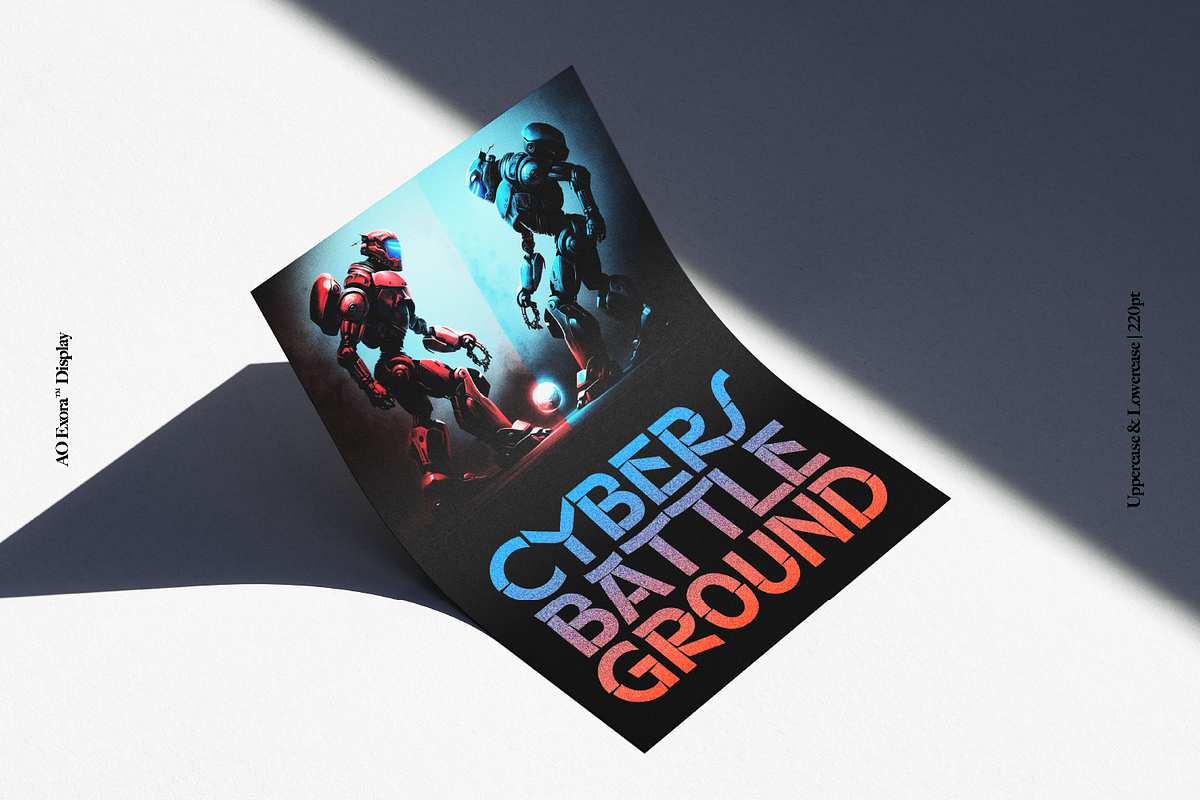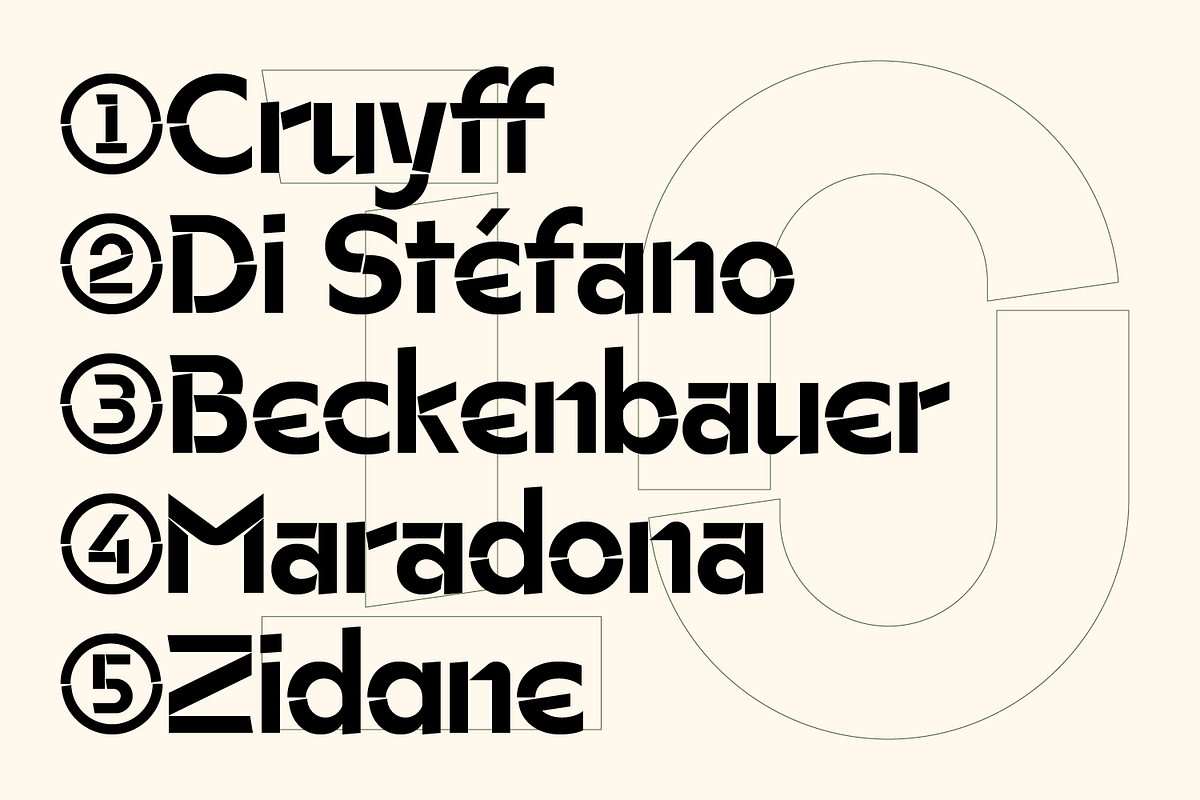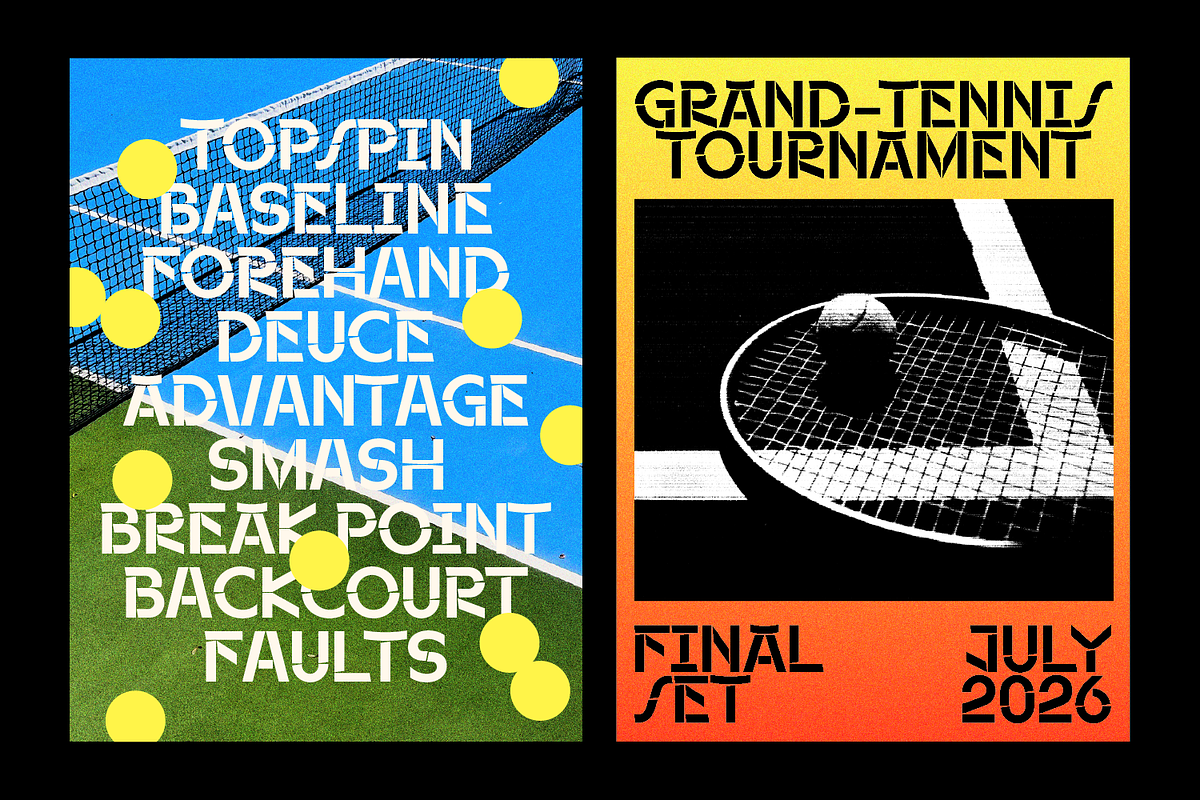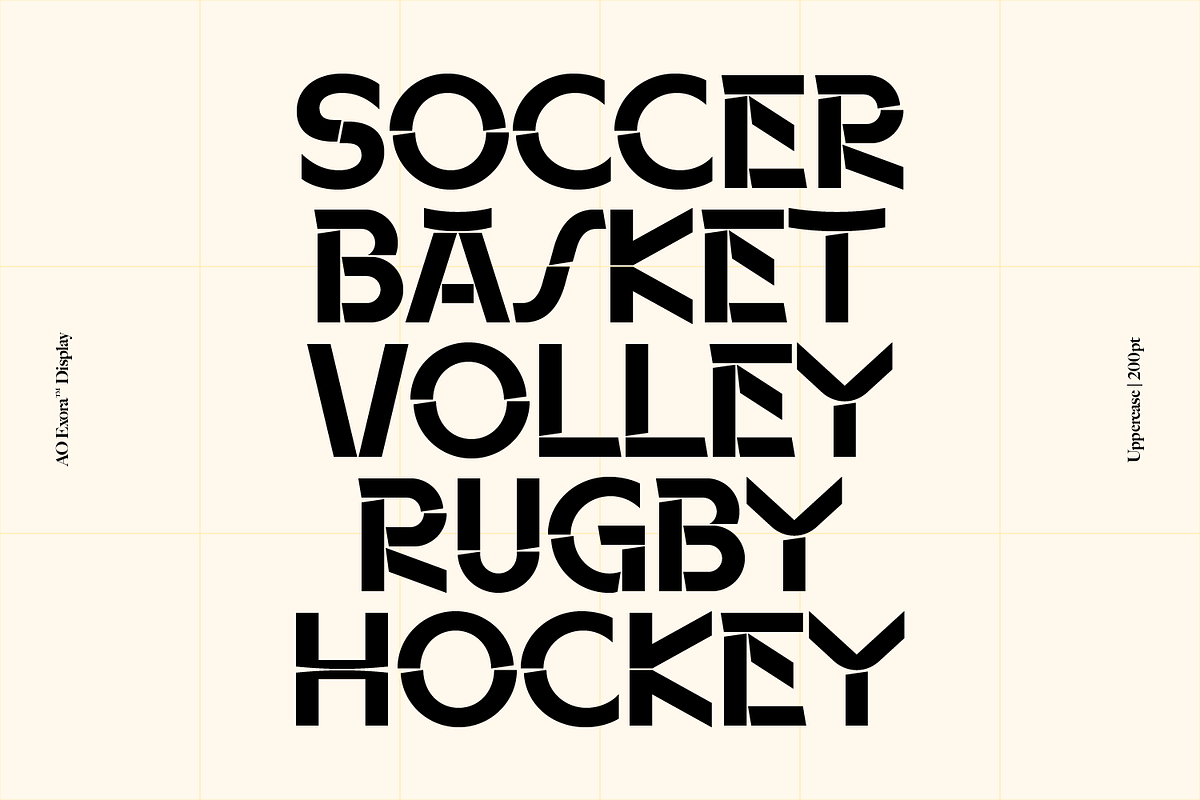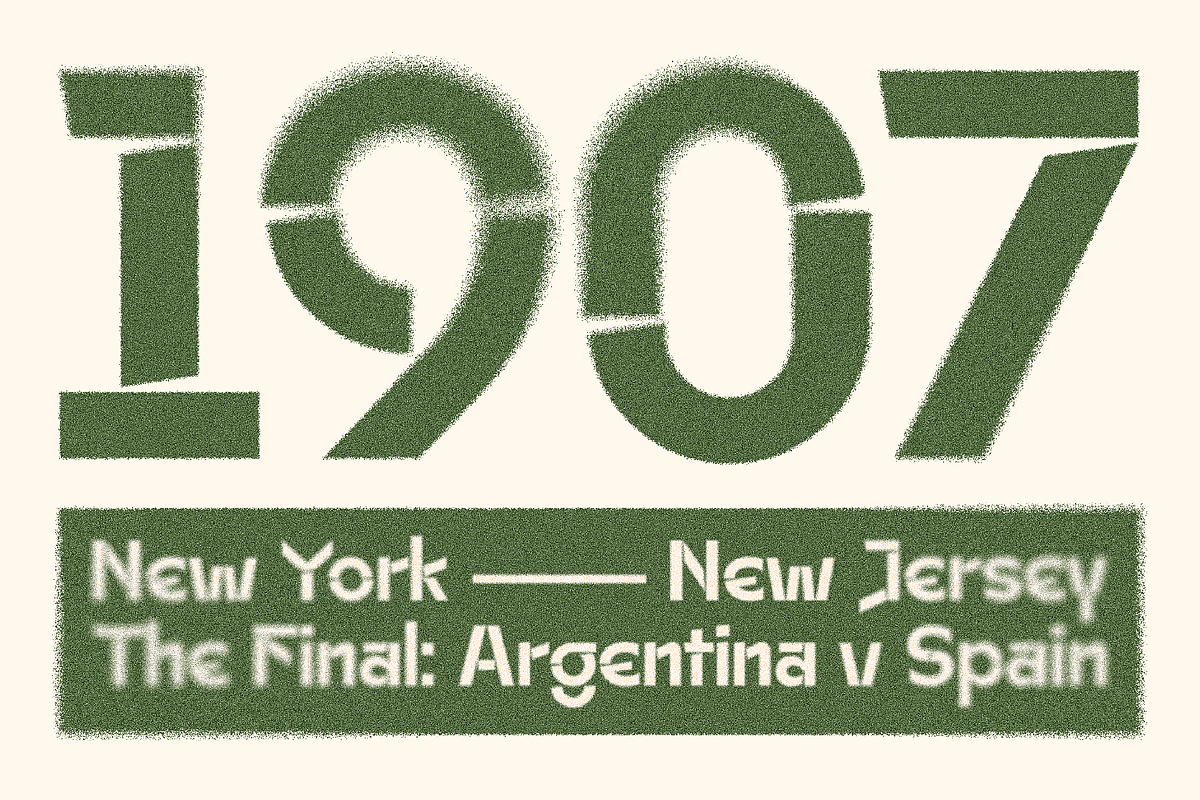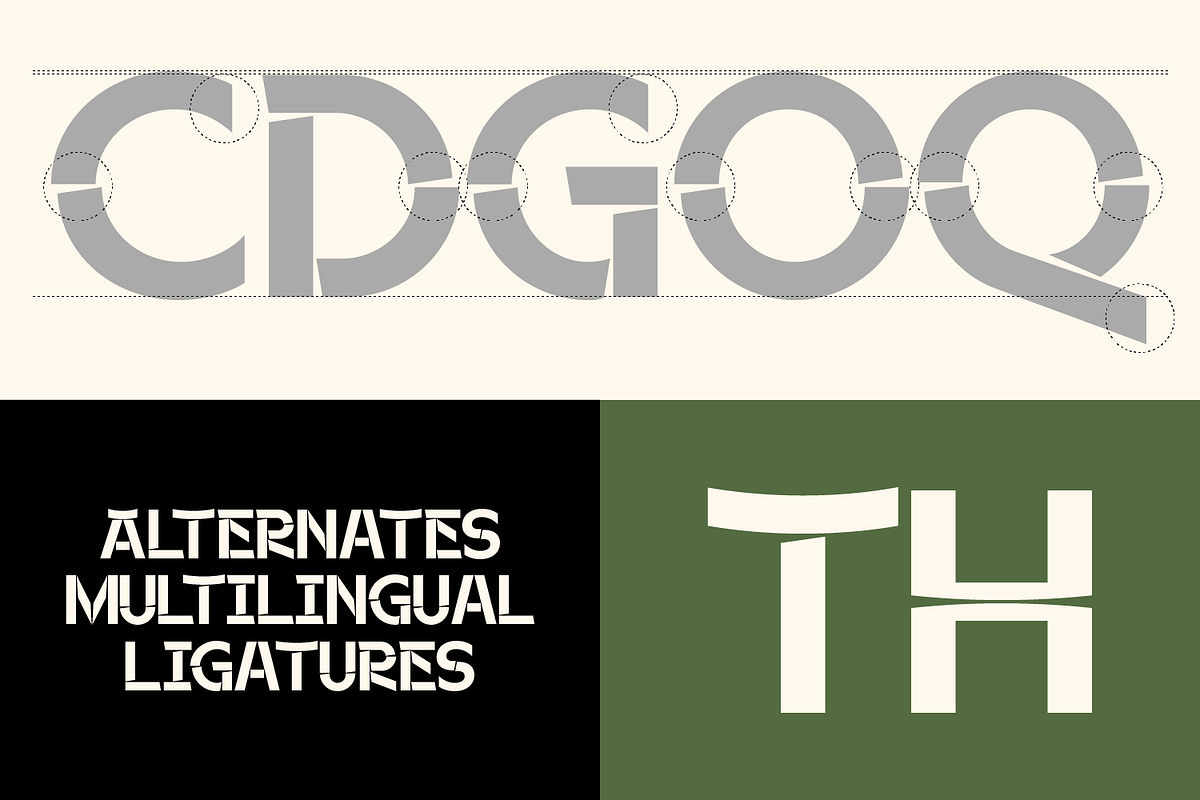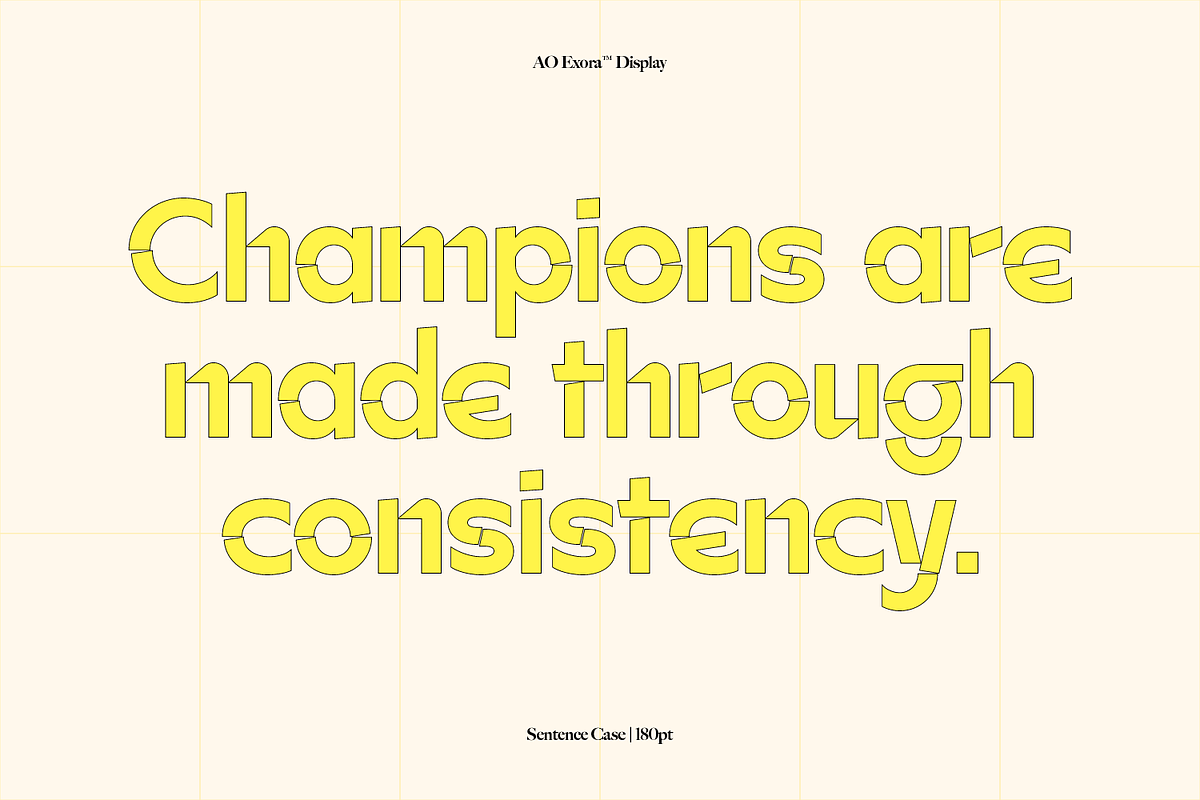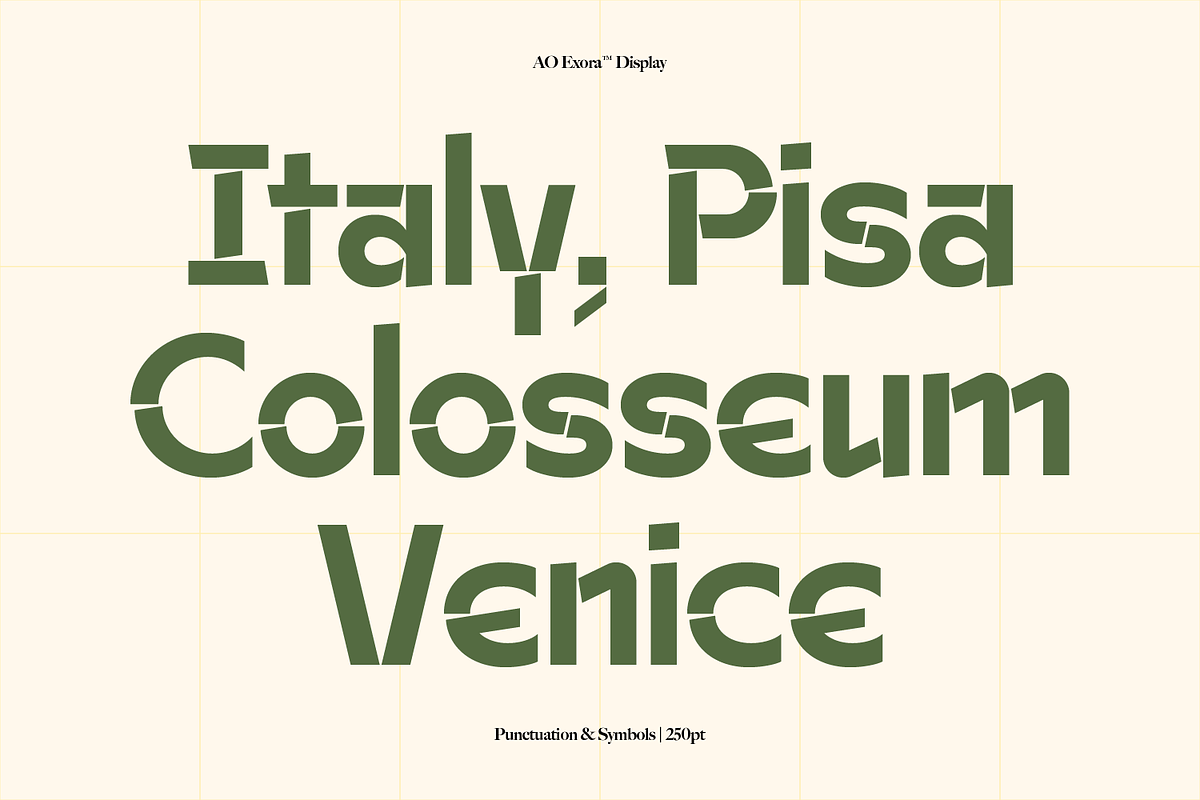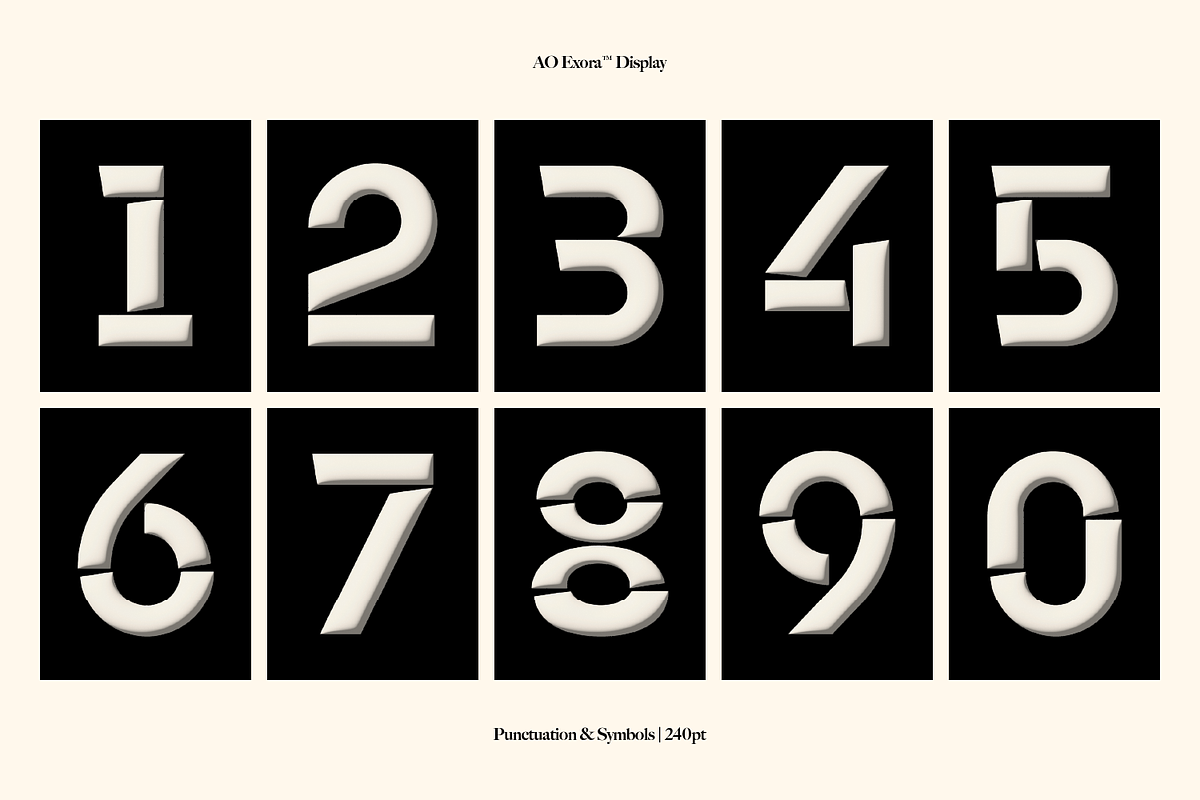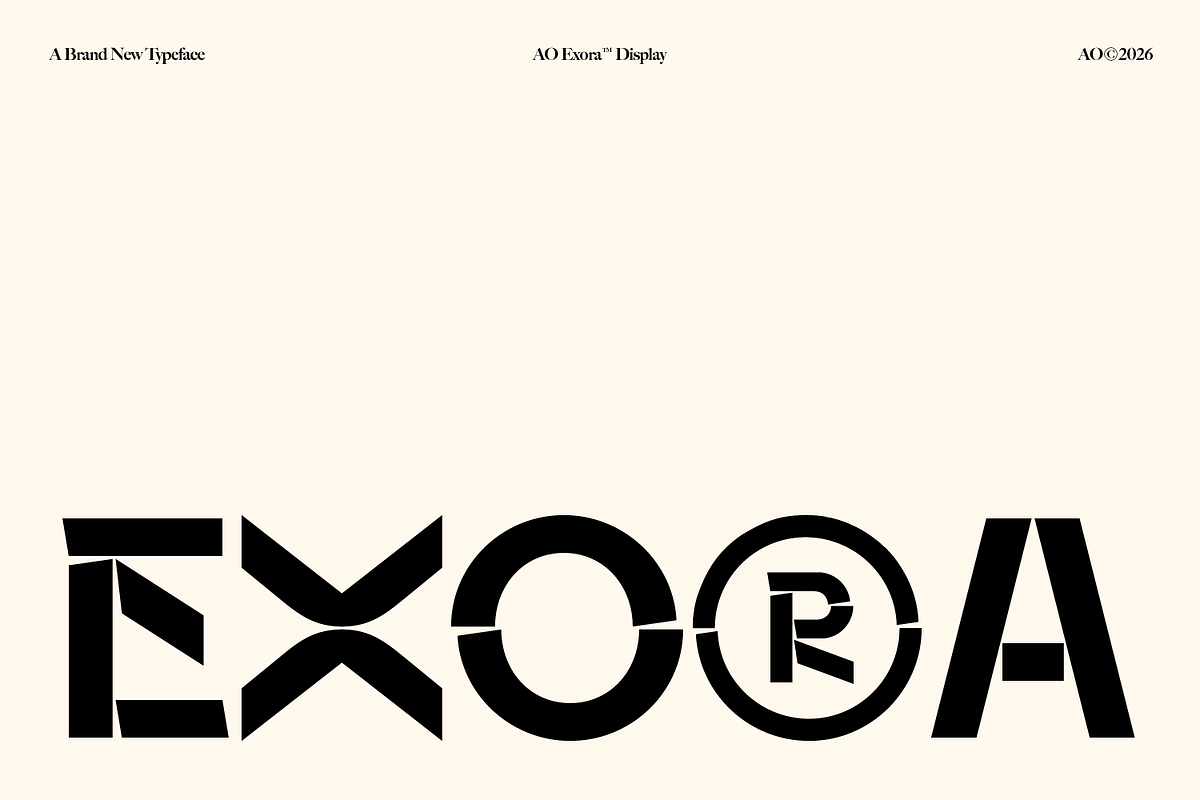
AO Exora - Experimental Stencil
Exora is a bold experimental stencil display font with a geometric and futuristic look. Its sharp cuts, unusual shapes, and stencil-inspired details give it a strong and playful personality. Exora is made to stand out, break the usual typography rules, and give your designs a unique visual edge. The Exora Font Includes: _ A full set of uppercase and lowercase _ Numbers, punctuation and Special Characters _ Multilingual language support _ Font Files (OTF/TTF/WOFF)